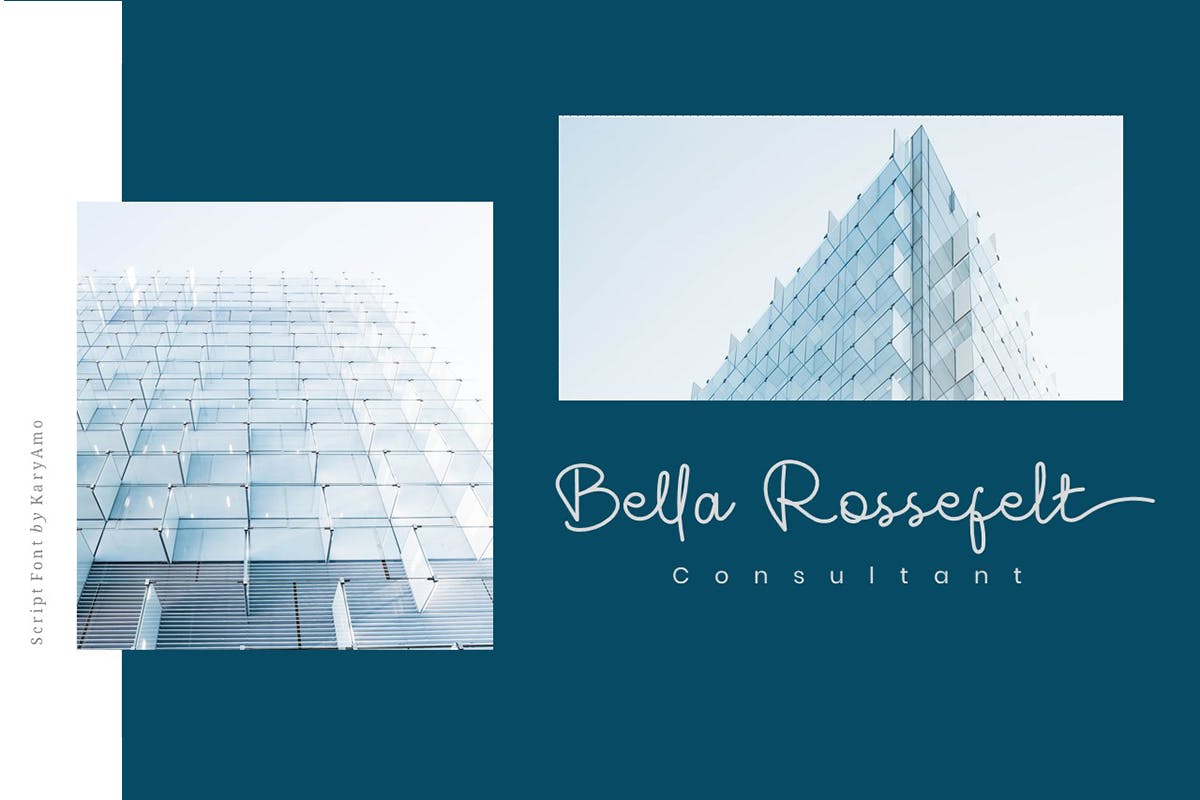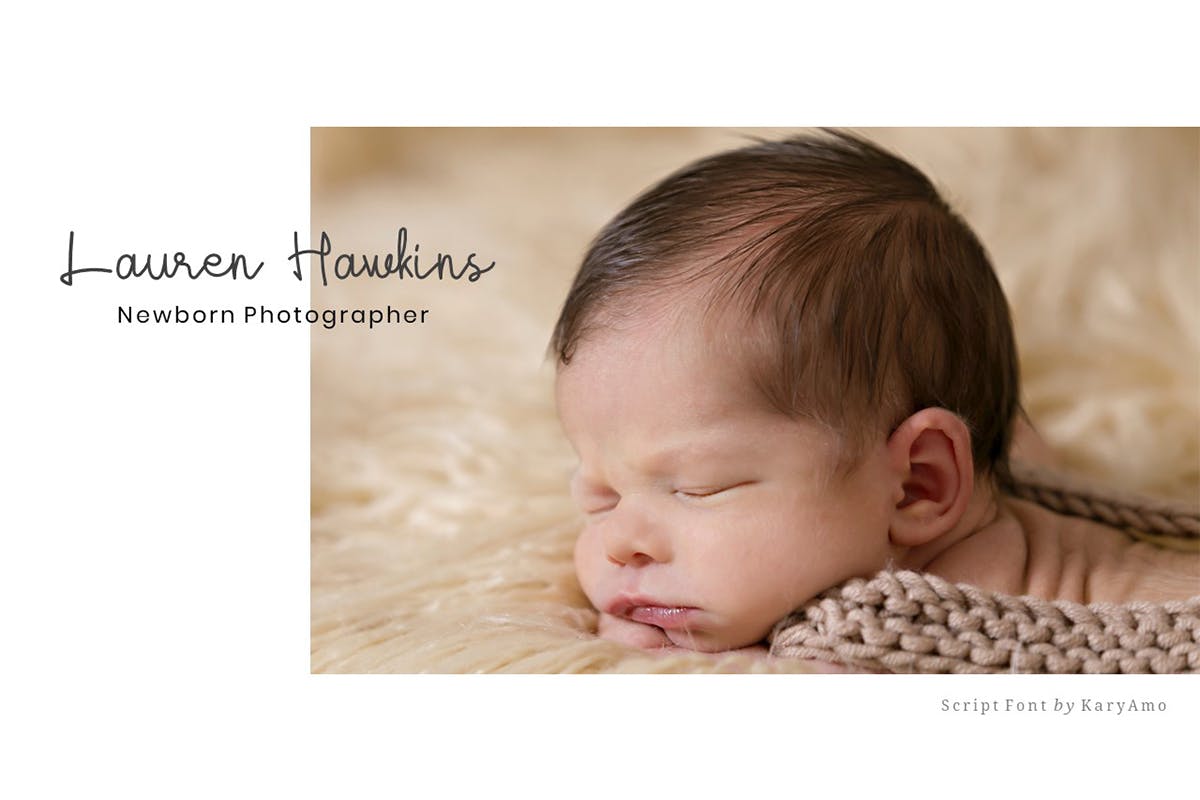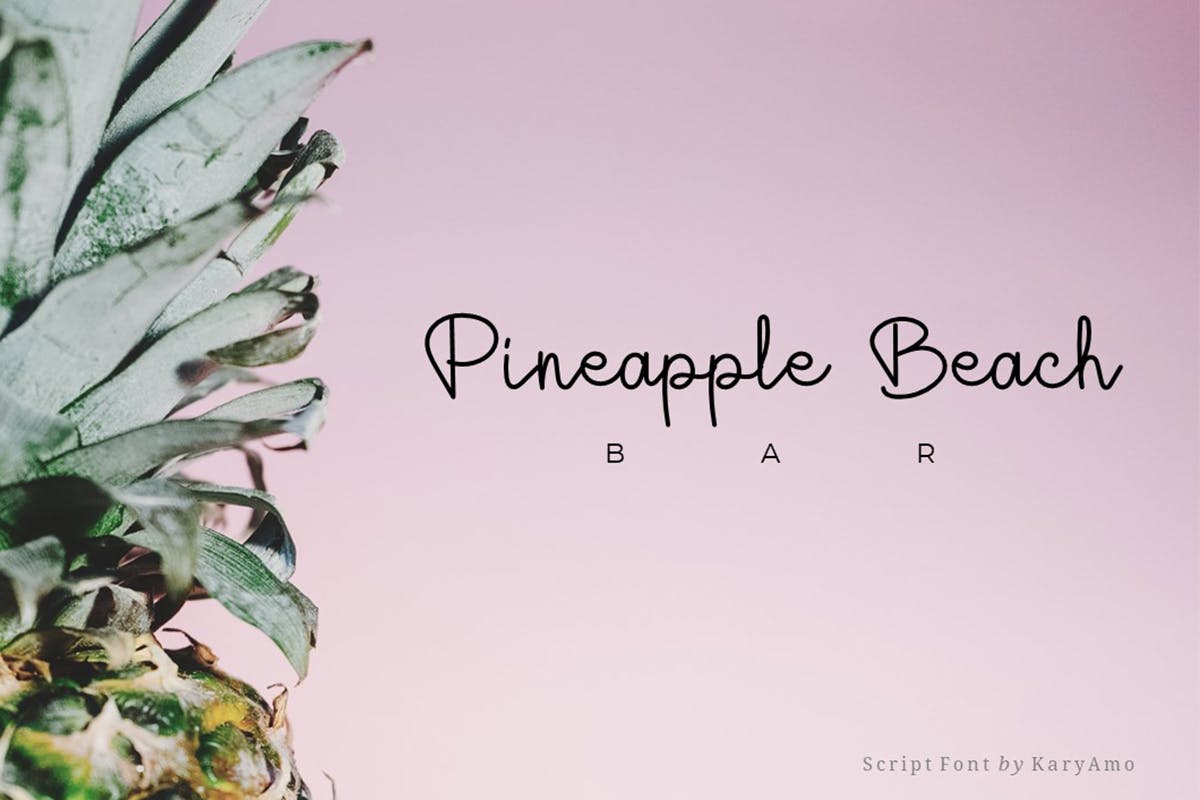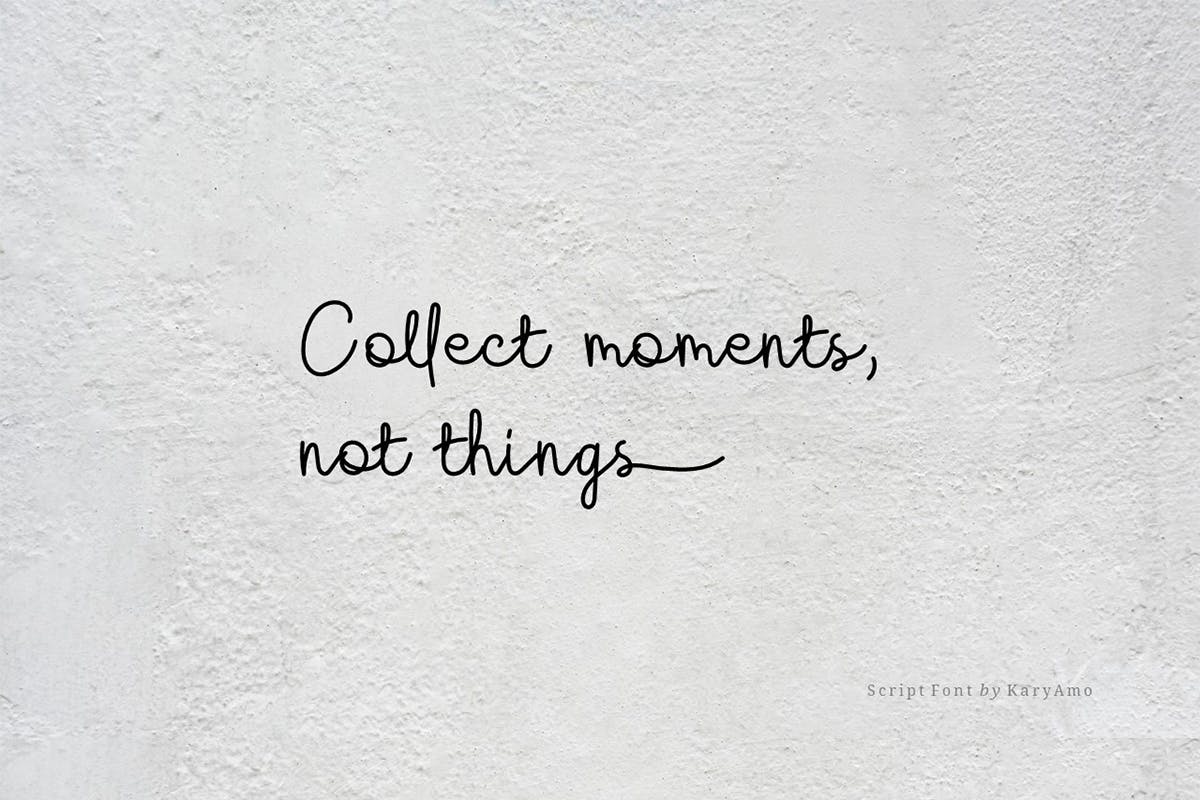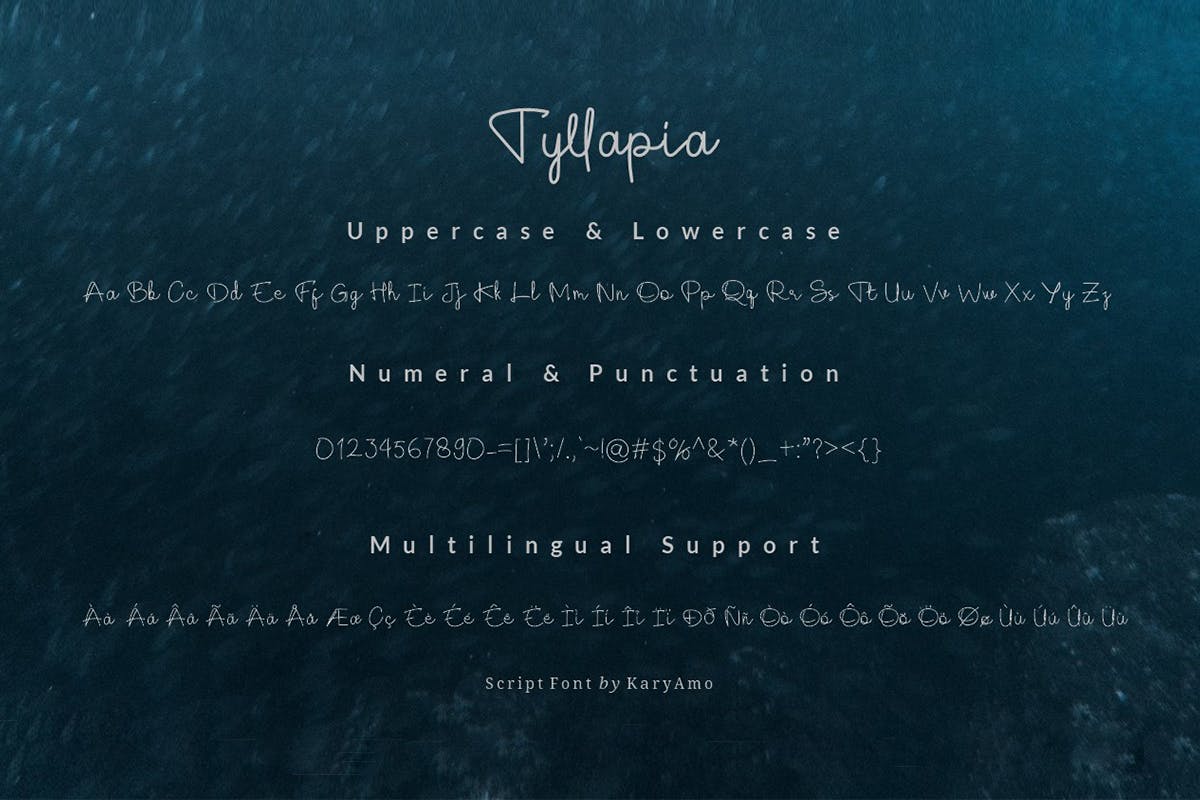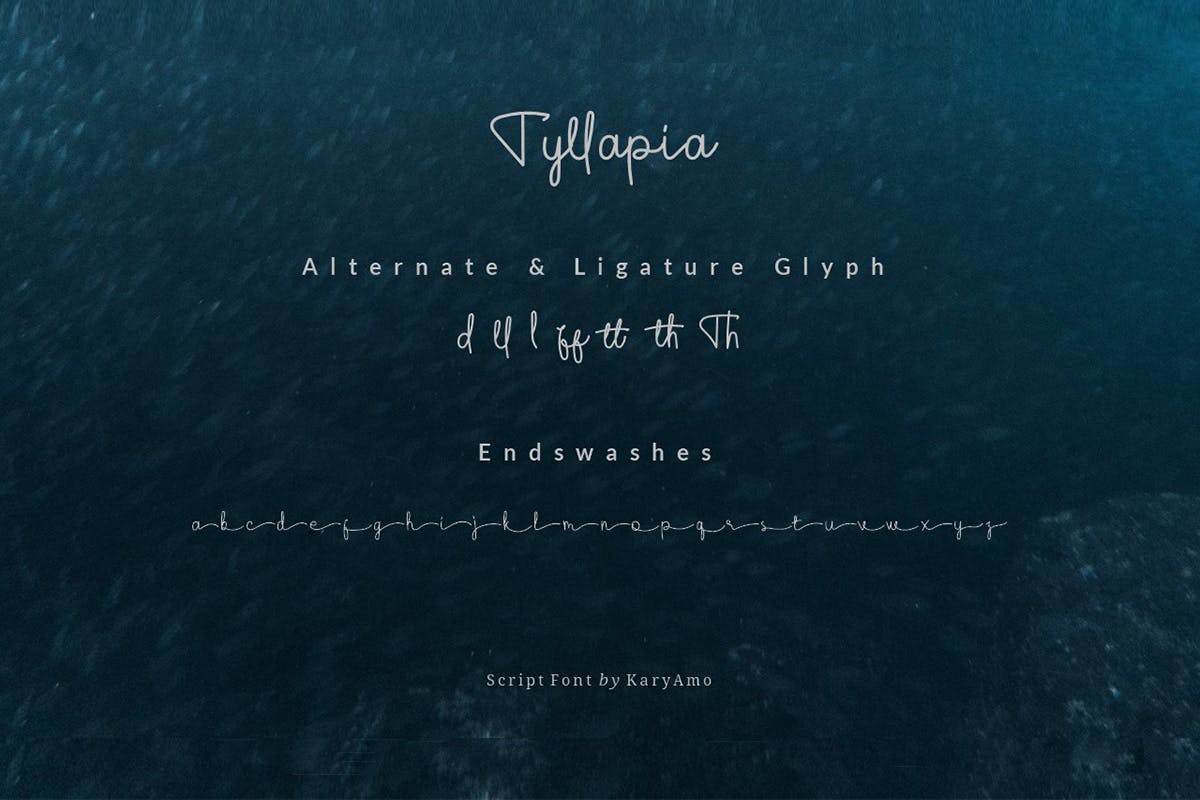
Free Tyllapia Demo Font
Free Tyllapia Demo Font is a gorgeous script font. It is suitable for you to use it on your projects such as wedding invitation, gift cards, flyers, business cards, and more. This free font is available for OTF format that you can install and use on your devices. However, this awesome font is coming with a personal use license, but you can get more features to use it on commercial use. It is easy to do it, you just visit and make a purchase for the premium version by clicking the button below.